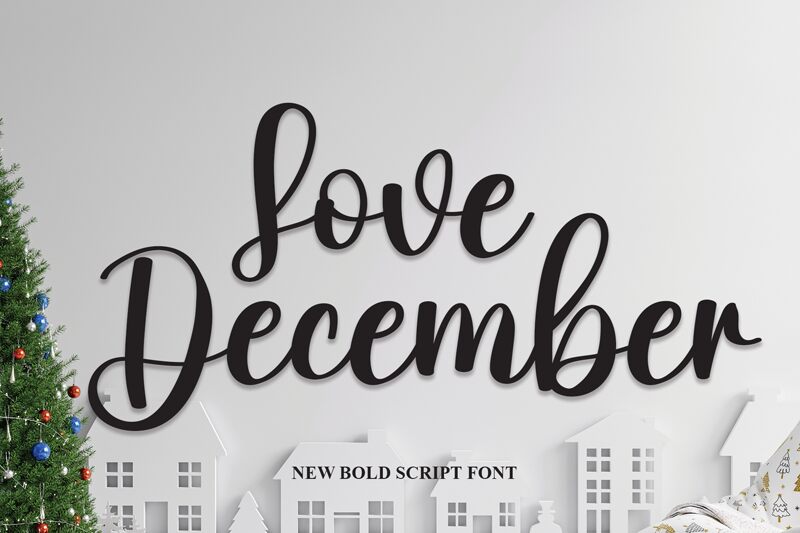
Love December
Love December, designed by Scratchones, is a calligraphy font that breathes romance into every curve and swash. Its distinctive flow and elegant lines make it perfect for wedding invitations, branding, and editorial designs. With its delicate yet impactful presence, Love December elevates the artistry of any project it graces—capturing the essence of handwritten beauty with a modern twist.
This font's versatility ensures it stands out whether in print or digital format, offering creatives a timeless tool to express sophistication and charm.
the latest style letters are perfect for wall displays, wedding invitations, social media post logos,
advertisements, product packaging, product designs, labels, photography, watermarks, invitations, stationery, and any project that requires taste handwriting.